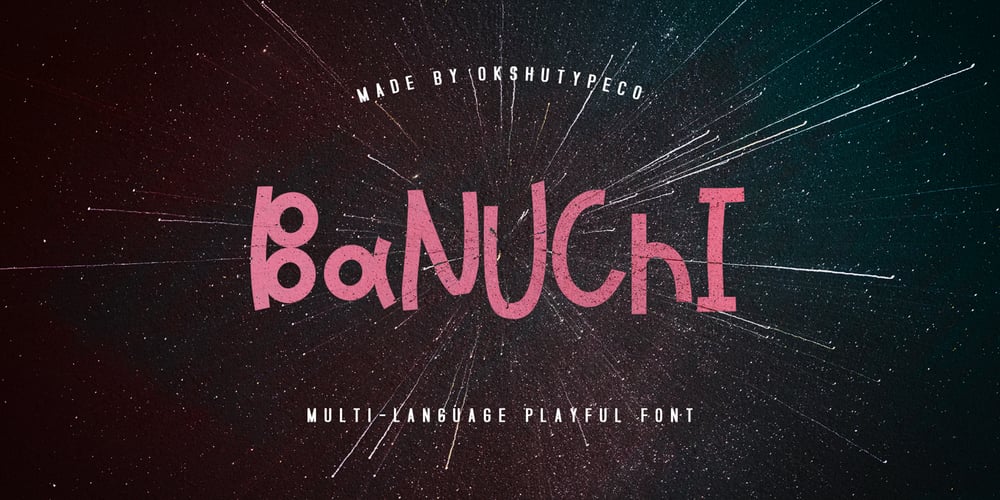
Banuchi
Banuchi font
Banuchi Font Family was designed by Oksana Shudegova and published by OKSHUtypeCO. Banuchi contains 1 styles and family package options. Banuchi – a new fresh handmade playful font.Very suitable for greeting cards, branding materials, business cards, quotes, posters, and more!This font are perfect for wedding postcard. Or you can create perfect and unique design of your logo, blog, stationery, marketing, magazines and more :)Multilingual OK